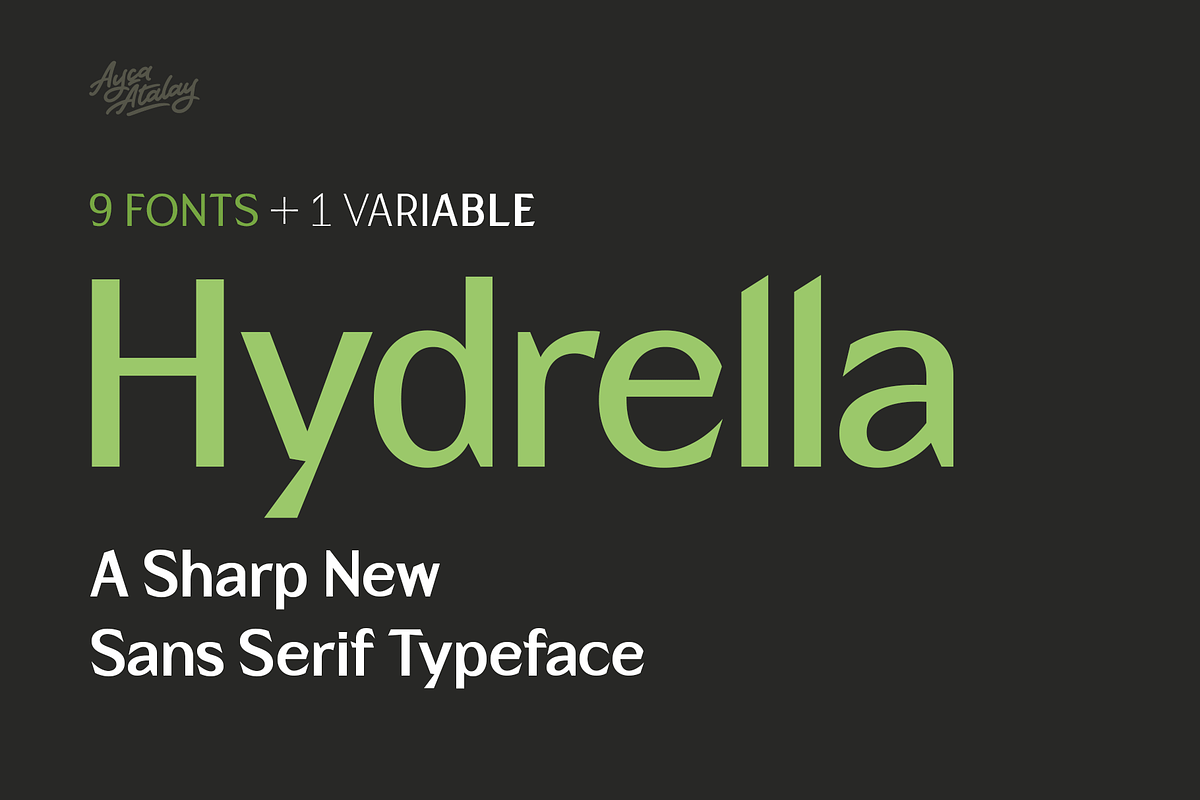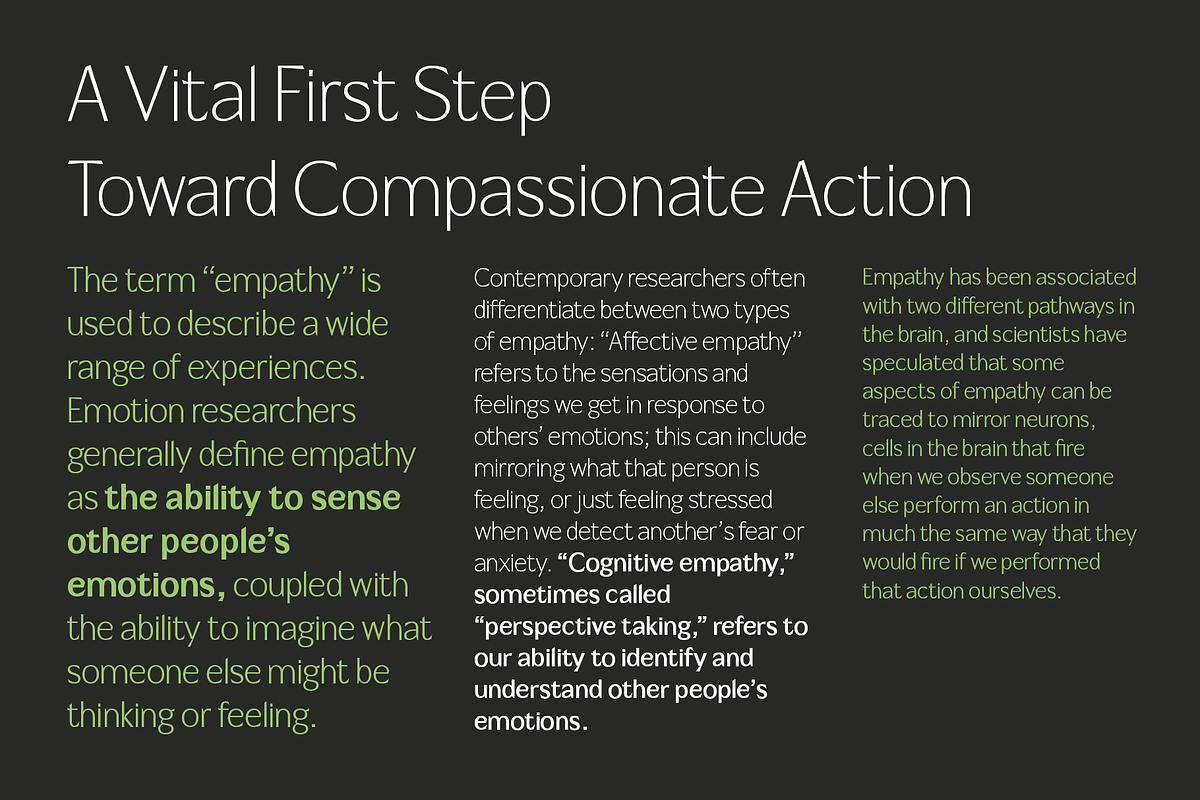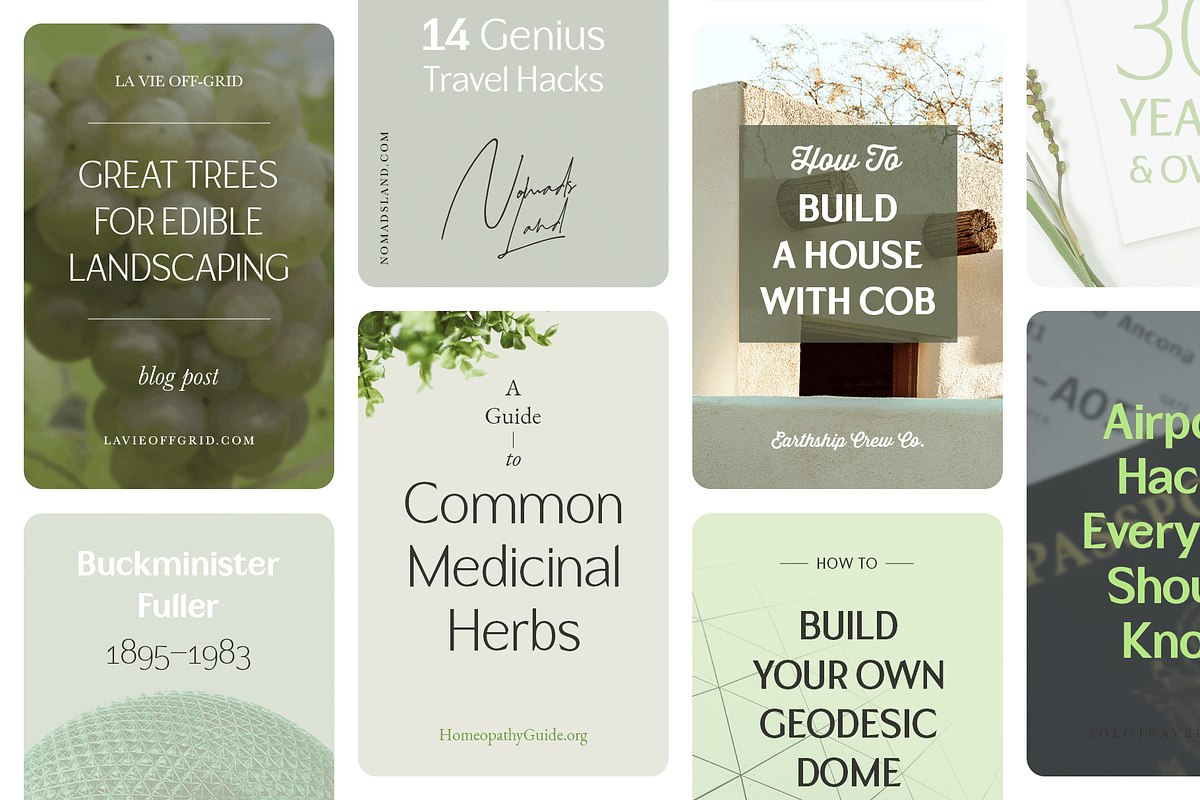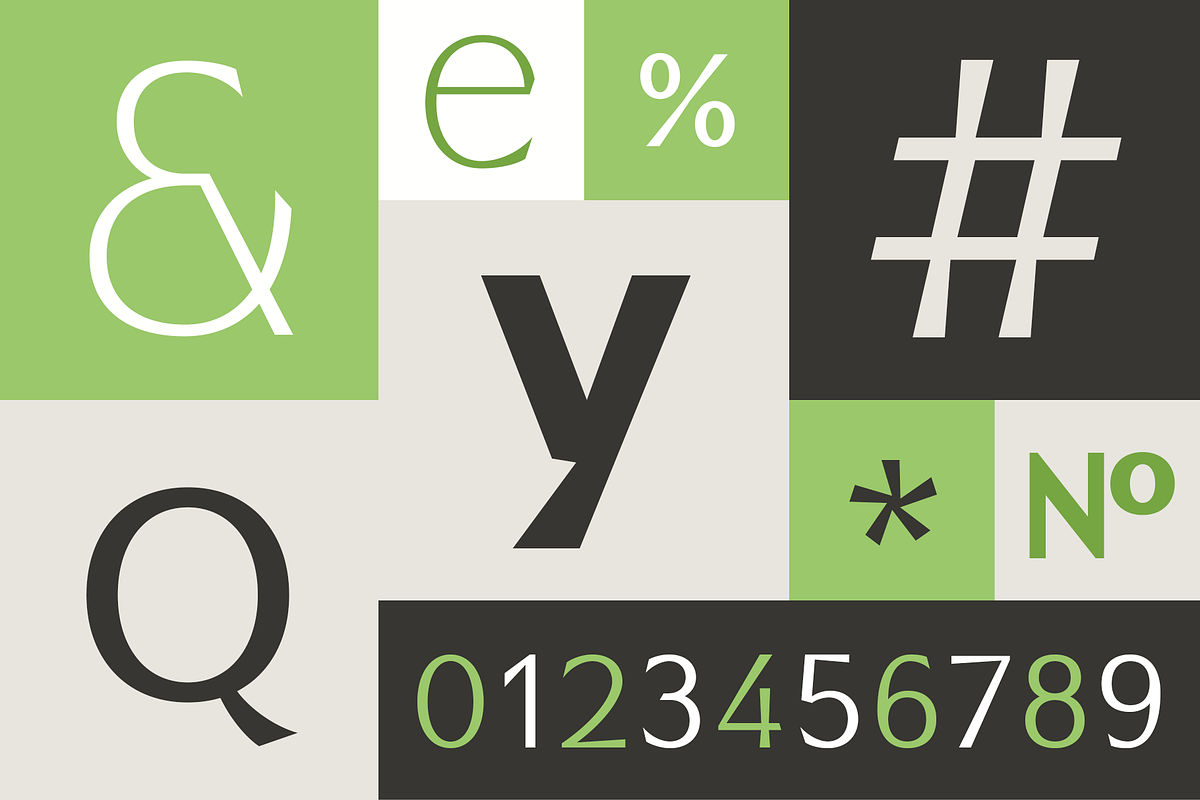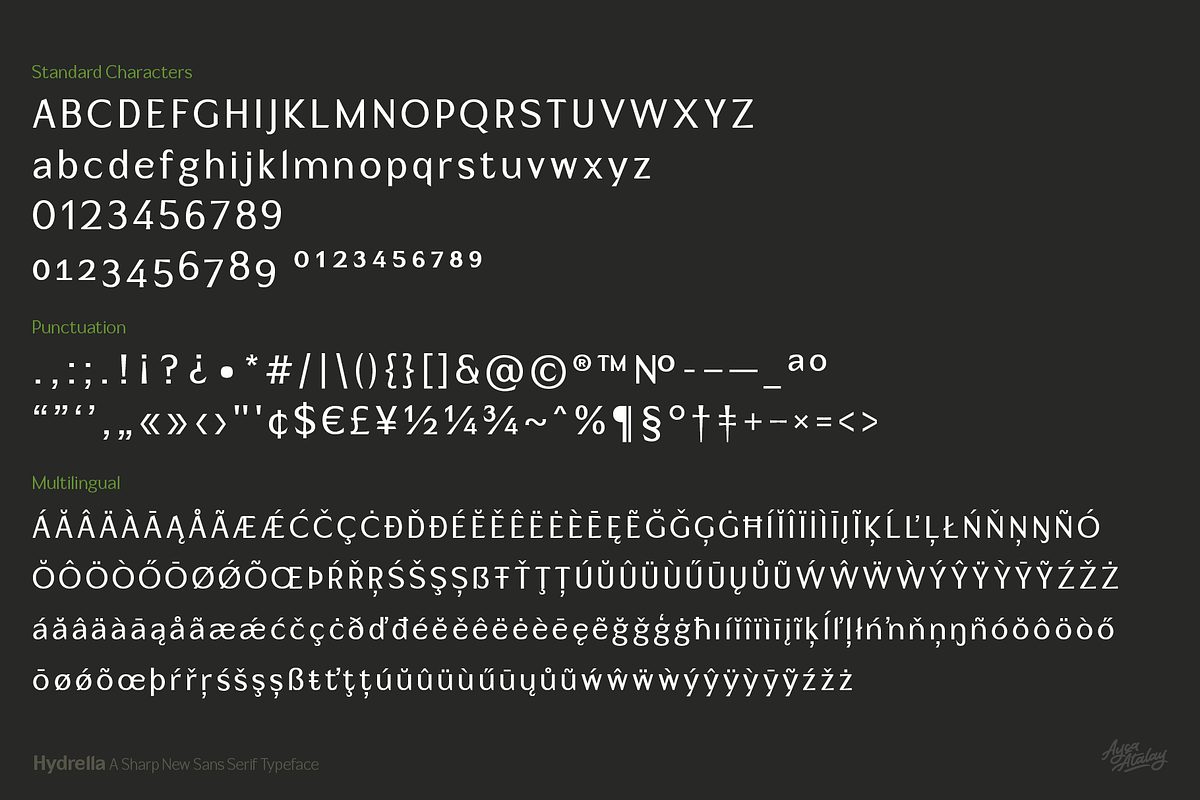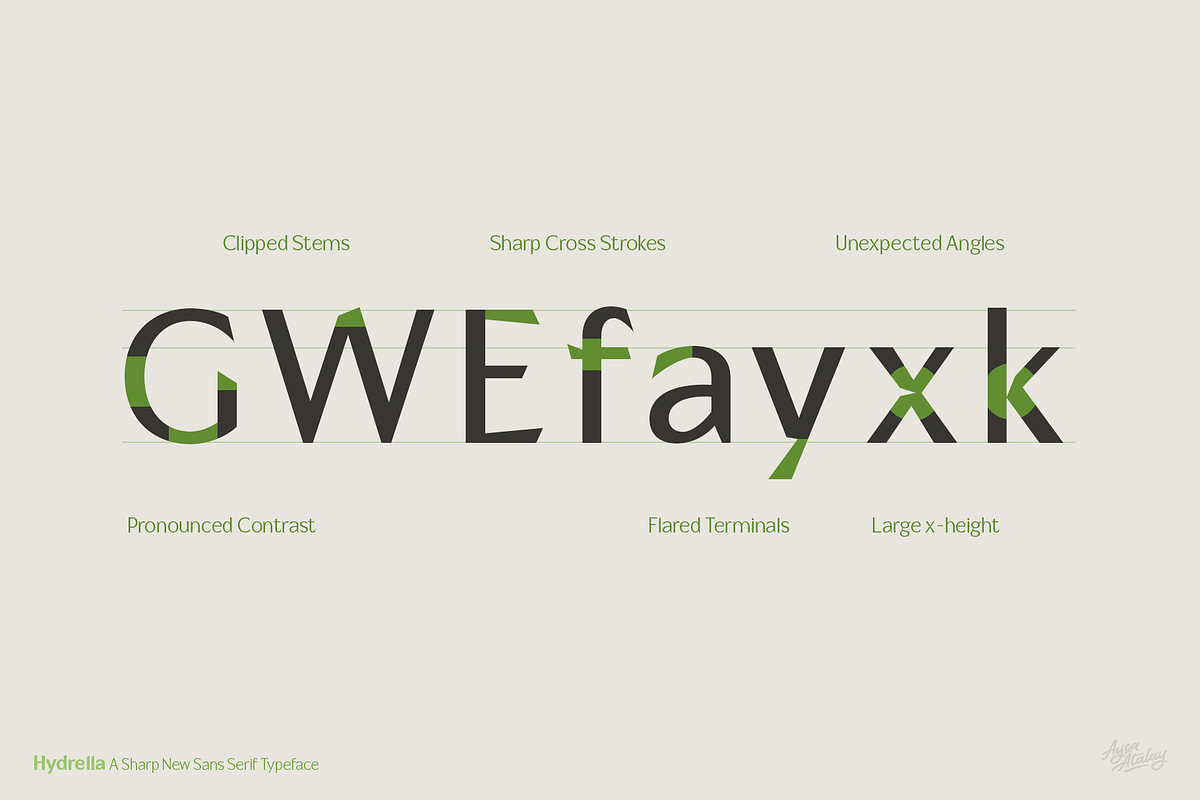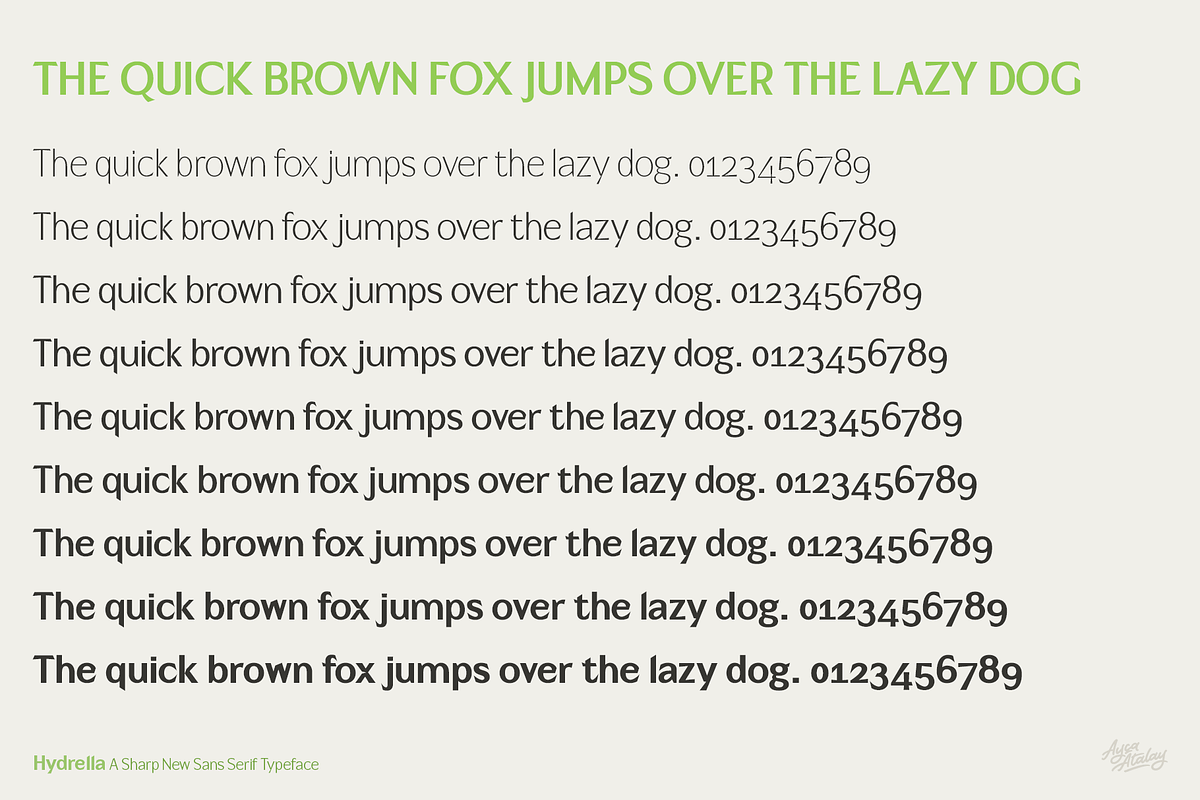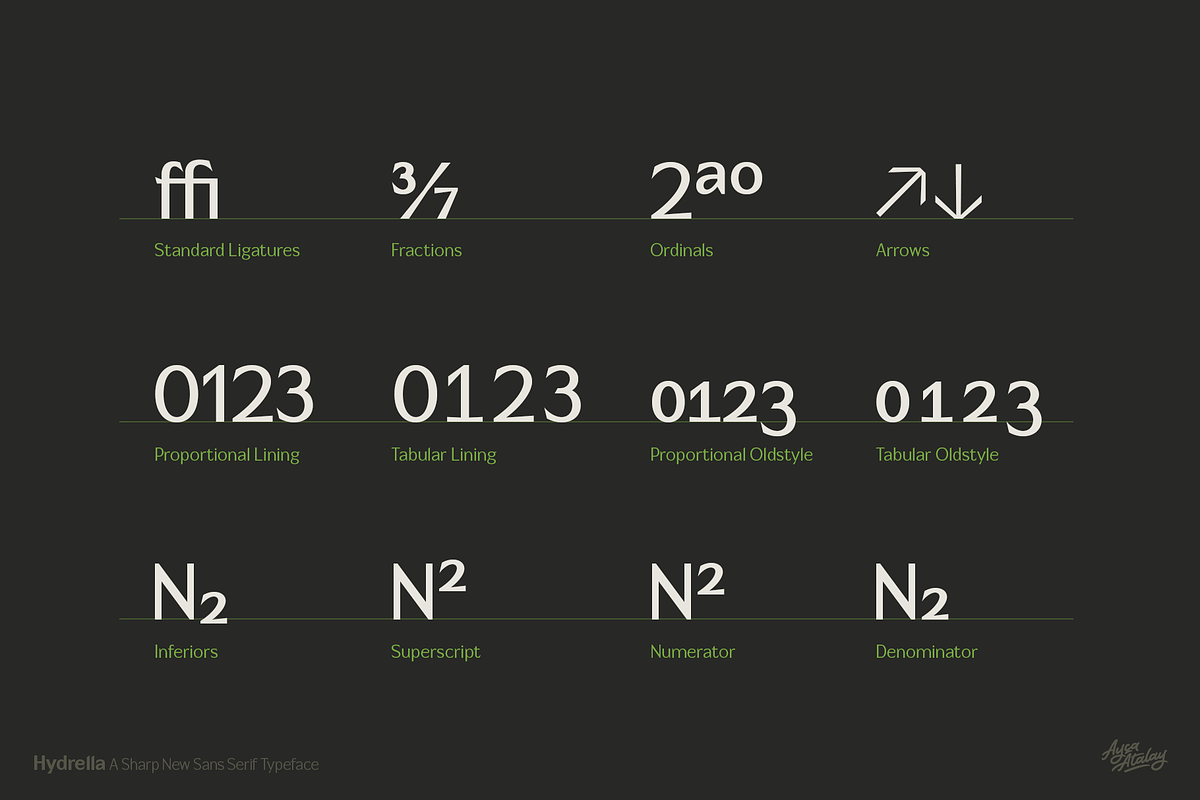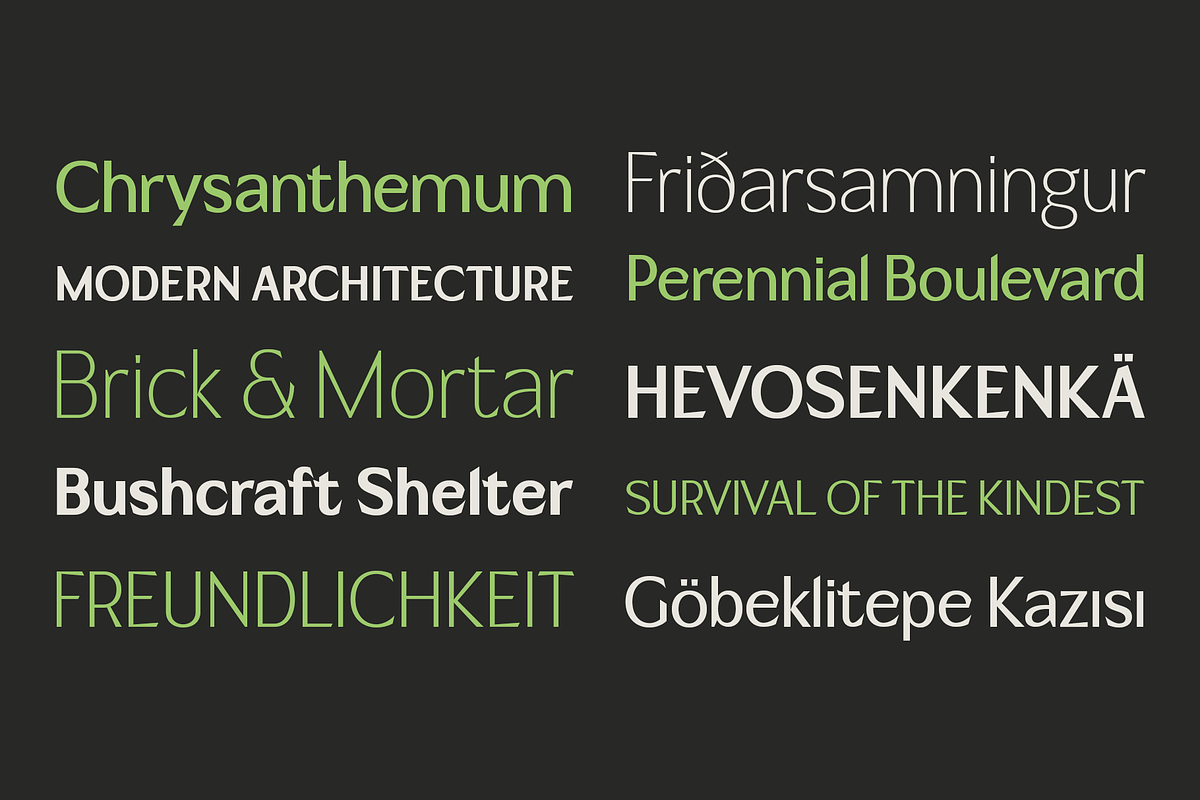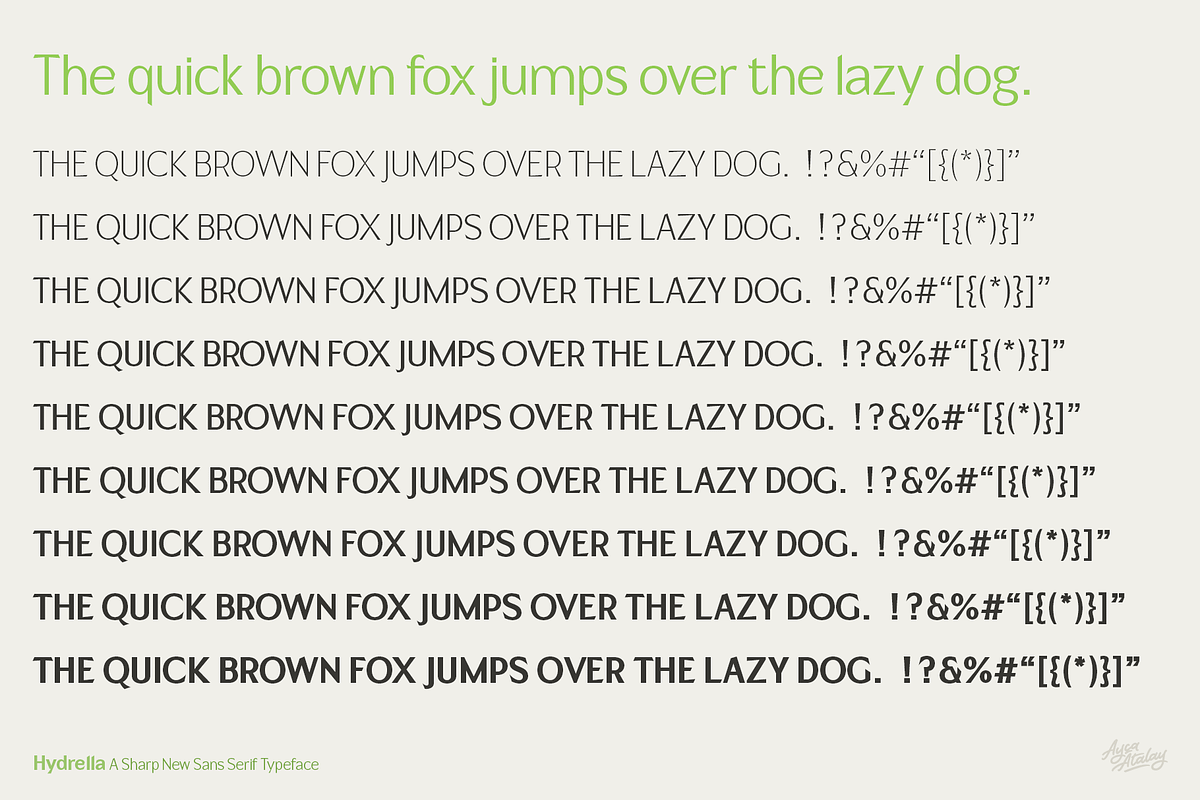
Hydrella | A Sharp New Sans
Hydrella is a modern sans serif with sharp, unique features and moderately high contrast. Available in 9 weights, Hydrella works well as both a display typeface and in smaller sizes.